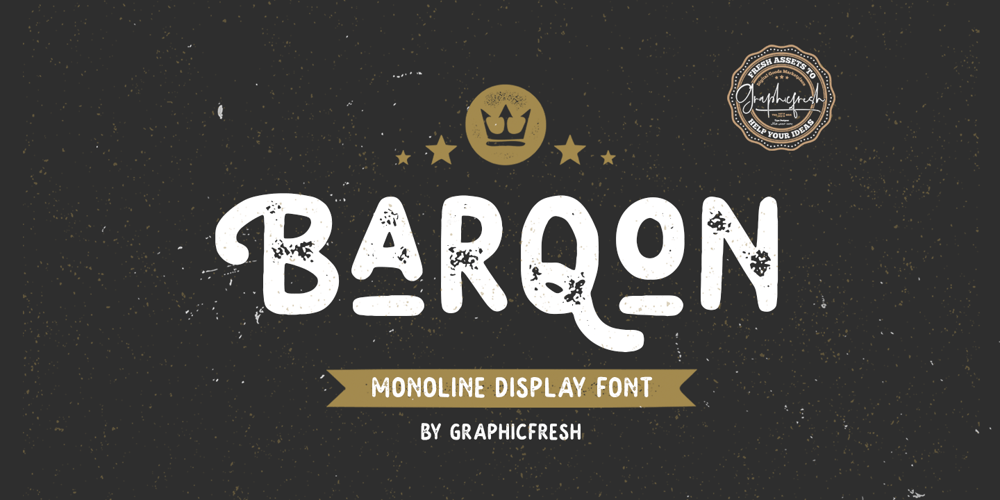
Barqon Font Family was designed by Muhammad Husni Haikal and published by Graphicfresh. Barqon contains 2 styles and family package options. Barqon is a vintage display family including Regular and Stamp versions. it’s perfect for logos, name card, magazine layouts, invitations, headers, or even large-scale artwork. Barqon includes 2 OTF files within the Zip folder.Features Uppercase Punctuation and Number Multilingual Language Alternate That’s it! Get cracking!! I hope you have as much fun using it as I did making it :)If you are still unsure, feel free to drop me a line, I’ll try to get to you as soon as possible ๐ Now go ahead and Get designing already!Thanks